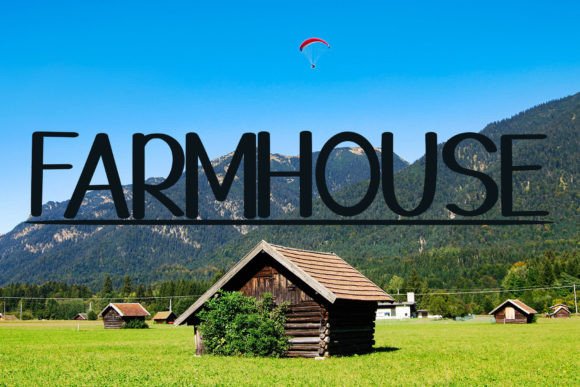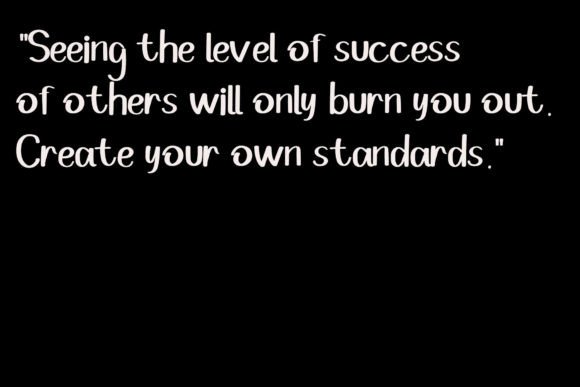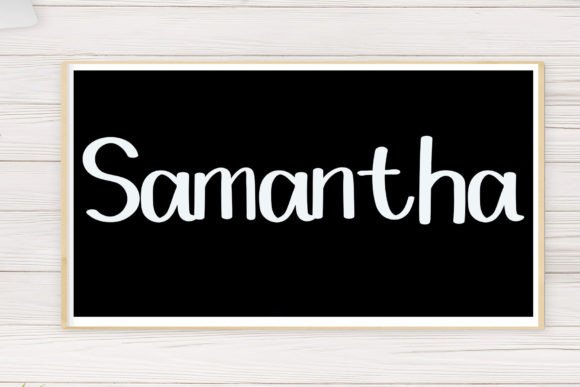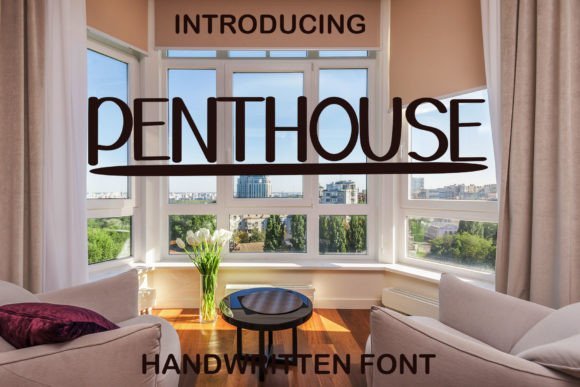
Introduction to Penthouse Font
Penthouse is a delicate, elegant, and flowing handwritten font.
It has beautiful and well-balanced characters and as a result, it matches a wide pool of designs Add it to your most creative ideas, and notice how it makes them come alive.